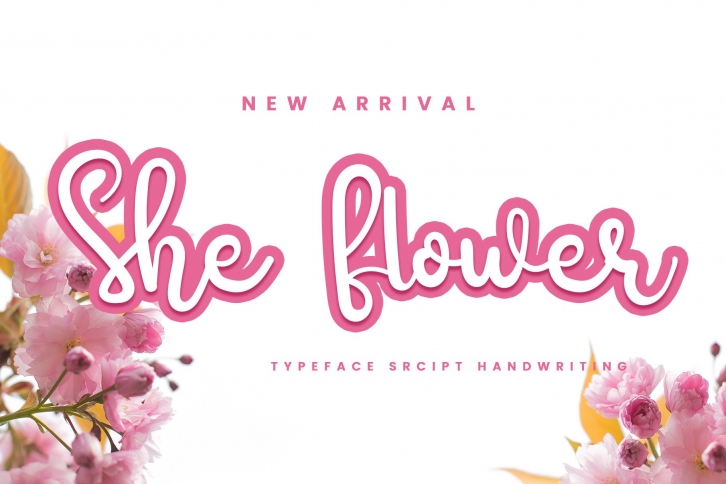
She Flower is a delicate and elegant handwritten font. Its distinct and well balanced letters make this font a masterpiece. Fall in love with its adaptable and flowing style and use it to create ravishing designs!